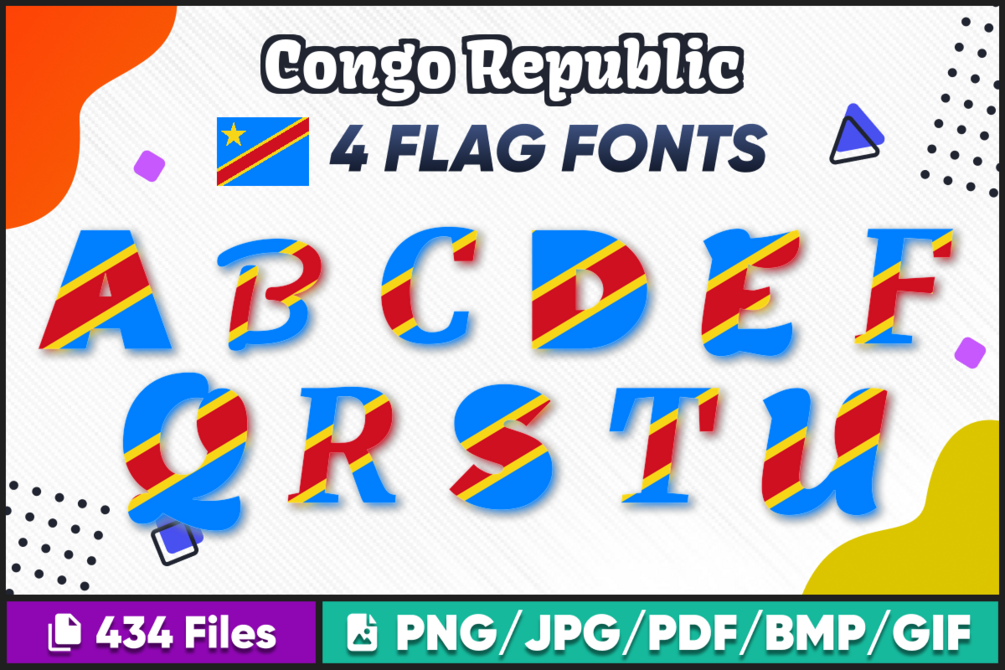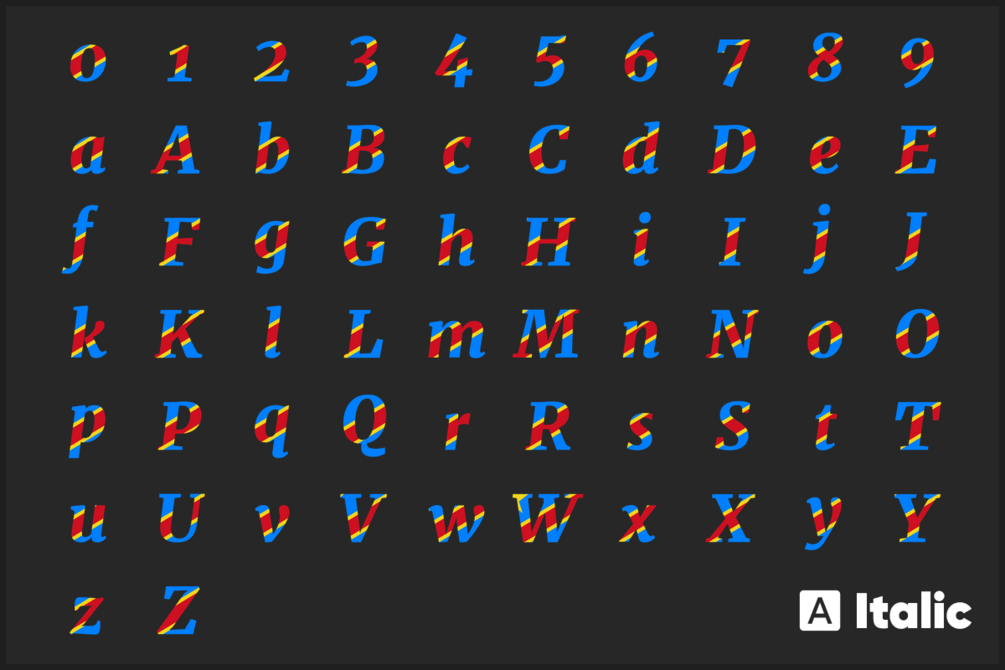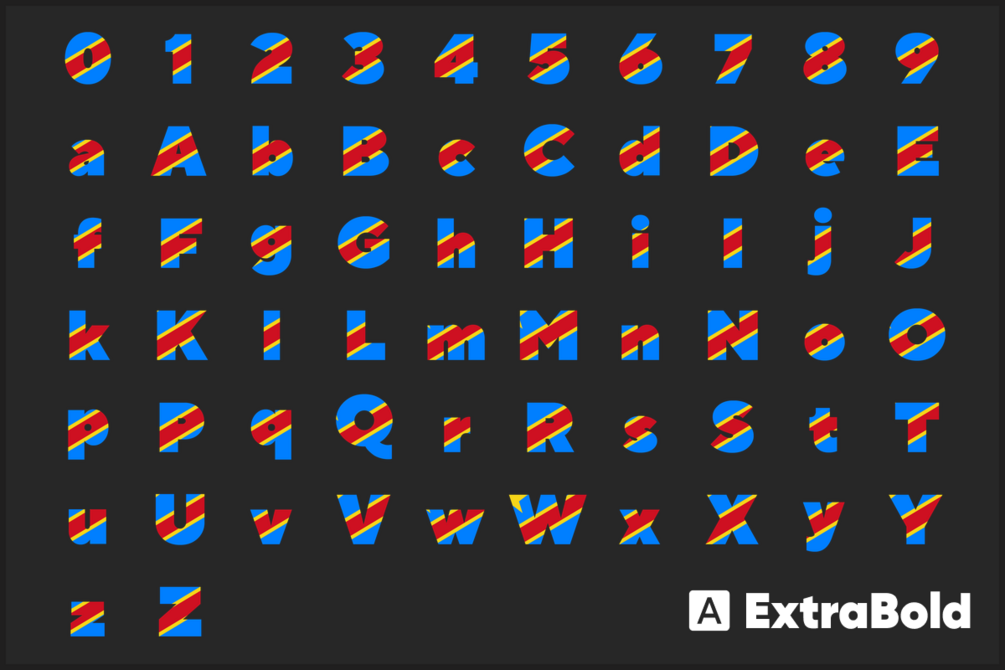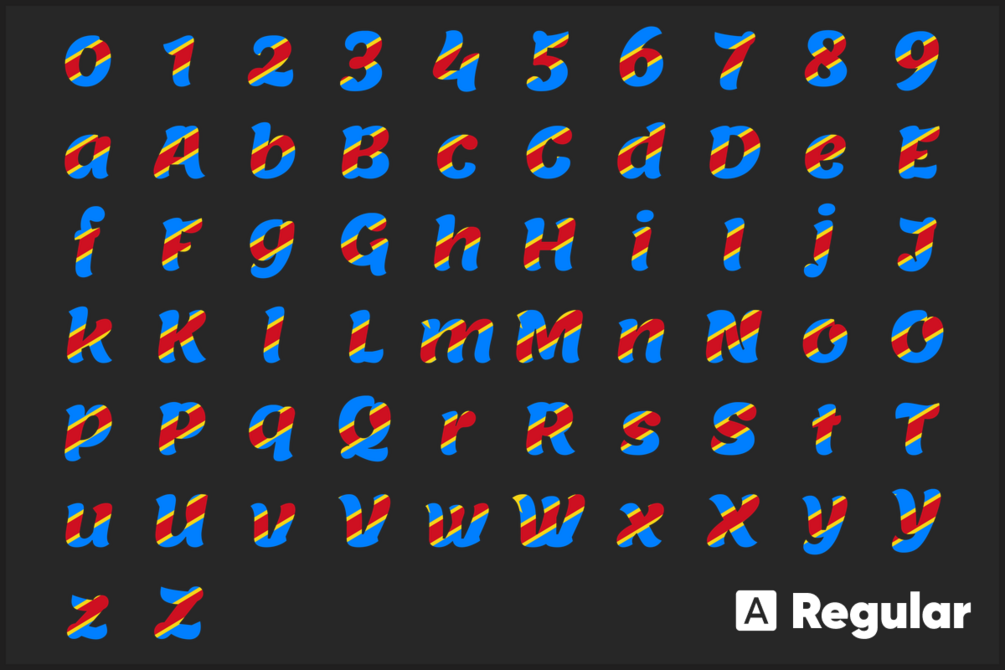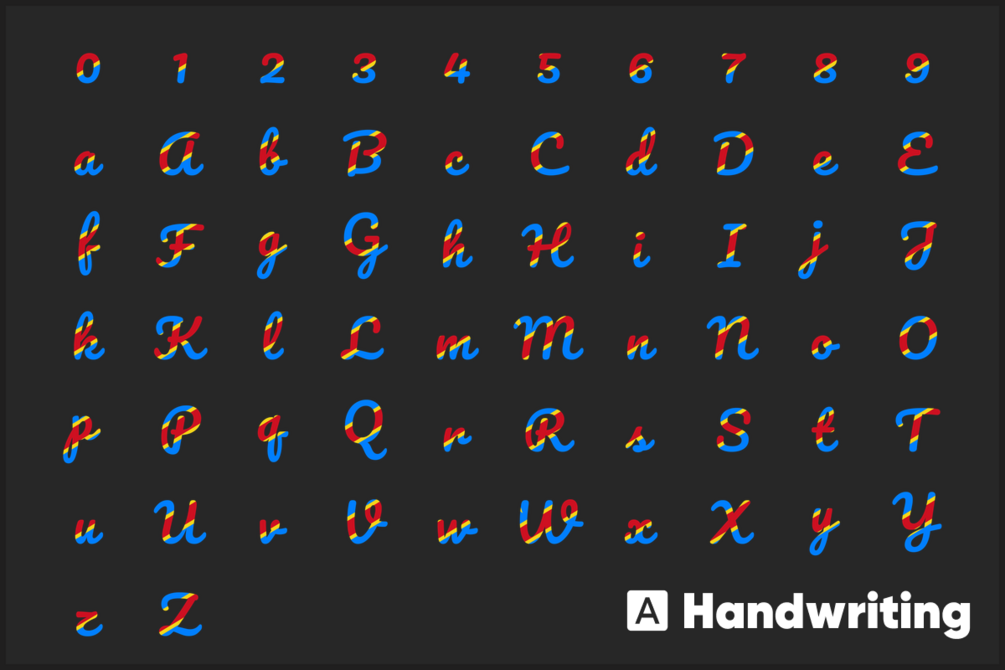
Looking for a unique way to showcase your country pride? Check out Congo Republic Font free download Flag Font, Letters! These high-quality font images are perfect for all your crafting needs. Use Congo Republic Font free download flag PNG images for t-shirt designs, scrapbooking, photo albums, cards, mugs, prints, and more.
Congo Republic